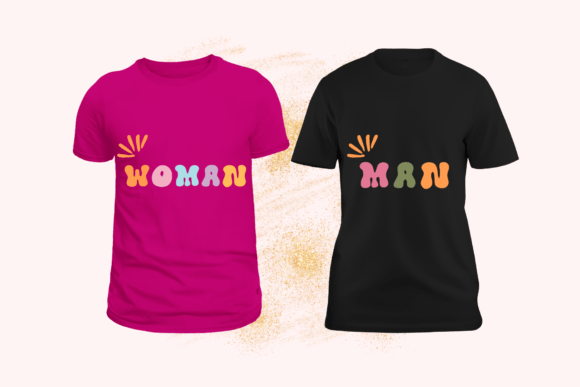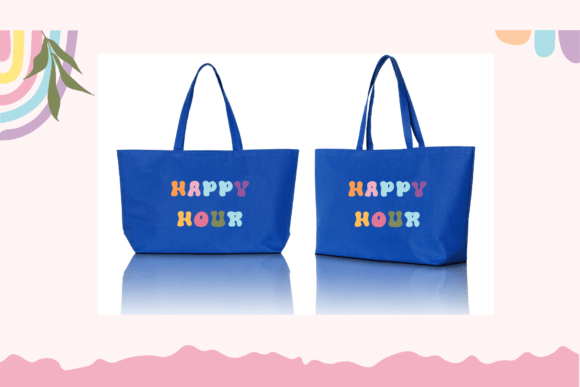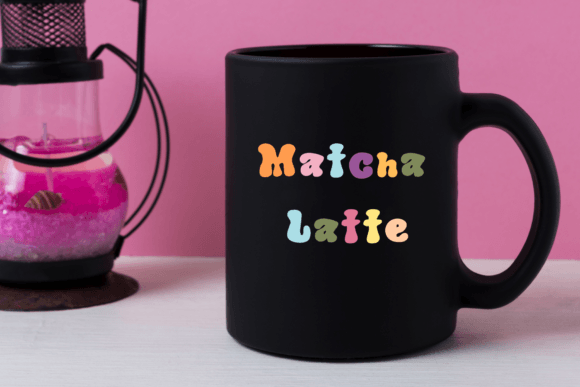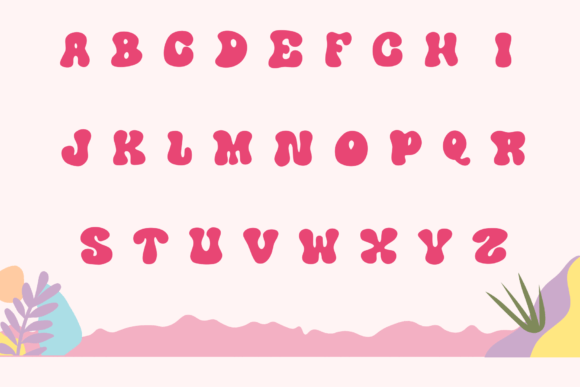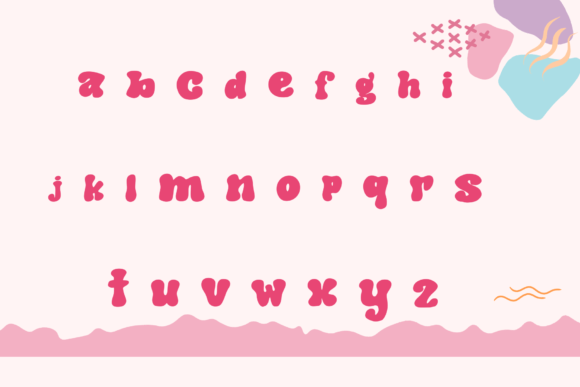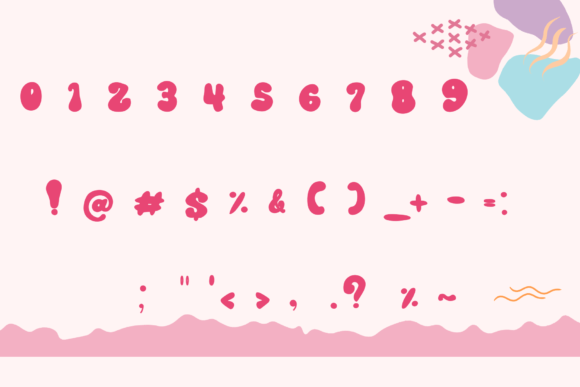
Introducing Blast Font: The Lively and Cute Display Font for Creative Designs
In the world of typography, fonts play a crucial role in conveying the tone and personality of a design. If you’re a designer or crafter looking for a font that exudes playfulness and charm, look no further than Blast Font. This display font is perfect for creating eye-catching designs that are sure to delight, whether you’re working on a cartoon-related project, children’s game, logo, greeting card, or social media post.
The Characteristics of Blast Font
Blast Font is a lively and cute display font that is sure to capture the attention of your audience. Its handwriting style gives it a personal and approachable feel, making it perfect for designs that require a touch of whimsy and fun. The font’s playful curves and lines create a sense of movement and energy, making it ideal for designs that need to stand out from the crowd.
Uses of Blast Font
Blast Font is a versatile font that can be used for a wide range of design projects. Here are some ideas to get you started:
- Cartoon-related designs: Blast Font is perfect for creating fun and playful cartoon characters, logos, and graphics.
- Children’s games: The font’s playful and child-friendly design makes it ideal for creating games, puzzles, and other interactive activities for kids.
- Logos: Use Blast Font to create a unique and memorable logo for your business or brand.
- Greeting cards: Add a personal touch to your greeting cards with Blast Font’s playful and charming design.
- Social media posts: Make your social media posts stand out with Blast Font’s eye-catching design.
Why Choose Blast Font?
So why choose Blast Font for your design projects? Here are just a few reasons:
- Unique and eye-catching design: Blast Font’s playful and charming design is sure to capture the attention of your audience.
- Versatile: The font can be used for a wide range of design projects, from cartoon-related designs to logos and greeting cards.
- Elegant and charming: Despite its playful design, Blast Font still feels elegant and charming, making it perfect for designs that require a touch of sophistication.
Tips for Using Blast Font
Here are a few tips for using Blast Font in your design projects:
- Use it sparingly: While Blast Font is a beautiful font, it can be overwhelming if used too much. Use it sparingly to add a touch of whimsy and fun to your design.
- Pair it with other fonts: Blast Font pairs well with other fonts, so feel free to experiment with different combinations to find the perfect look for your design.
- Experiment with colors: Blast Font looks great in a variety of colors, so don’t be afraid to experiment and find the perfect color scheme for your design.
In conclusion, Blast Font is a lively and cute display font that is perfect for designers and crafters looking to add a touch of whimsy and fun to their design projects. Its playful and charming design makes it ideal for a wide range of projects, from cartoon-related designs to logos and greeting cards. With its unique and eye-catching design, Blast Font is sure to capture the attention of your audience and leave a lasting impression.
So why not give Blast Font a try? With its versatility, elegance, and charm, it’s the perfect font for any design project that requires a touch of playfulness and sophistication.